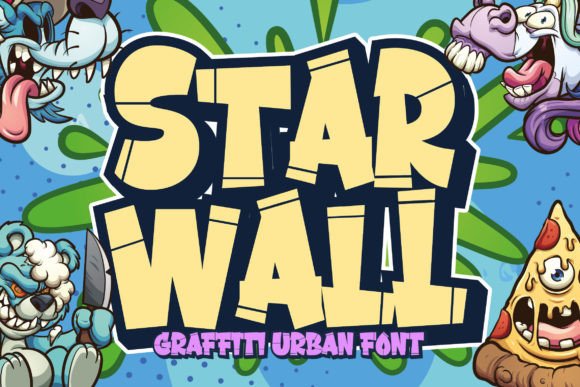
Introducing Starwall Font: The Ultimate Display Font for Friendly and Fun Designs
Are you looking for a font that exudes friendliness and playfulness? Look no further than Starwall Font! This childish, easy-to-read display font is perfect for a variety of design projects, from crafts and digital design to presentations and greeting cards. In this article, we’ll take a closer look at the Starwall Font and explore its features, benefits, and uses.
What is Starwall Font?
Starwall Font is a display font designed to convey a sense of friendliness and approachability. Its childish and playful design makes it perfect for projects that require a fun and lighthearted touch. The font is easy to read, even at small sizes, making it versatile for use in various design applications.
Key Features of Starwall Font
- Childish and playful design: Starwall Font has a unique and playful design that is sure to capture the attention of your audience.
- Easy to read: The font is designed to be easy to read, even at small sizes, making it perfect for use in digital and print designs.
- Versatile: Starwall Font can be used for a variety of design projects, from crafts and digital design to presentations and greeting cards.
- Conveys friendliness: The font is designed to convey a sense of friendliness and approachability, making it perfect for projects that require a warm and welcoming tone.
Benefits of Using Starwall Font
There are many benefits to using Starwall Font in your design projects. Here are just a few:
- Adds a playful touch: Starwall Font adds a playful and childish touch to your designs, making them more engaging and fun.
- Versatile: Starwall Font can be used for a variety of design projects, making it a great addition to your font library.
- Conveys friendliness: The font is designed to convey a sense of friendliness and approachability, making it perfect for projects that require a warm and welcoming tone.
Uses of Starwall Font
Starwall Font can be used for a variety of design projects, including:
- Crafts: Use Starwall Font to add a playful touch to your craft projects, such as handmade cards and gift tags.
- Digital design: Use the font to create fun and engaging digital designs, such as social media graphics and blog posts.
- Presentations: Add a playful touch to your presentations with Starwall Font, making them more engaging and fun.
- Greeting cards: Use the font to create fun and playful greeting cards for special occasions.
Tips and Variations
Here are some tips and variations to help you get the most out of Starwall Font:
- Experiment with colors: Try using different colors to add a pop of color to your designs.
- Mix and match: Mix and match Starwall Font with other fonts to create a unique and interesting design.
- Use it for headings: Use Starwall Font for headings and titles to add a playful touch to your designs.
- Add graphics: Add graphics and images to your designs to make them more engaging and fun.
In conclusion, Starwall Font is a childish, easy-to-read display font that conveys impeccable friendliness. Its playful and fun design makes it perfect for a variety of design projects, from crafts and digital design to presentations and greeting cards. With its versatility, ease of use, and friendly tone, Starwall Font is sure to become your go-to font for all your design needs.
- What is Starwall Font?: Starwall Font is a childish, easy-to-read display font designed to convey friendliness and approachability.
- What is Starwall Font used for?: Starwall Font can be used for a variety of design projects, including crafts, digital design, presentations, and greeting cards.
- Is Starwall Font easy to read?: Yes, Starwall Font is designed to be easy to read, even at small sizes.